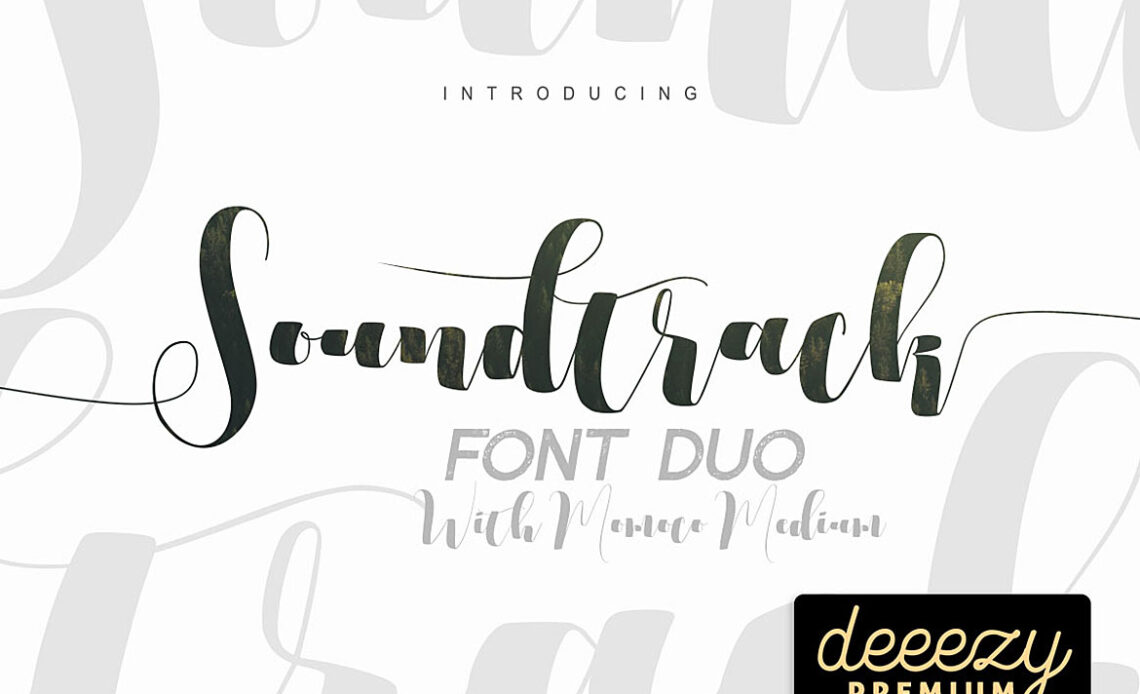
Unleash Your Creativity with Soundtrack Font Duo: The Perfect Symphony for Your Design Journey
Step into a world of captivating typography with Soundtrack Font Duo, an exquisite fusion of modern brush script and clean display fonts. This dynamic duo is a masterpiece crafted by JumboDesign, renowned for their innovative and stylish font creations.
Experience the Elegance of Handwritten Charm:
With its sweeping strokes and graceful curves, the Soundtrack Font Duo's brush script font exudes a touch of elegance and personality. Each letter dances across the page like a melody, adding a touch of sophistication to your designs.
Showcase Your Designs with a Clean and Modern Aesthetic:
The display font included in the Soundtrack Font Duo offers a striking contrast to the brush script, with its crisp lines and minimalist design. Whether you're creating logos, posters, or website headers, this font provides a clean and contemporary canvas for your creative expression.
Grunge Version for an Edgy Touch:
Embrace the raw and edgy appeal of the grunge version of the display font. This unique variation adds a touch of texture and grit, perfect for designs that demand attention. Whether you're creating urban-inspired graphics or vintage-style posters, the grunge version will add a distinctive charm to your projects.
Multilingual Support for Global Appeal:
With its extensive multilingual support, the Soundtrack Font Duo caters to a global audience. Create designs that resonate with people from different linguistic backgrounds, expanding your reach and connecting with a diverse customer base.
Dive into a Sea of Stylistic Alternates:
Unlock a treasure trove of creative possibilities with the Soundtrack Font Duo's array of stylistic alternates. Experiment with different letterforms, swashes, and ligatures to add depth and character to your designs. Discover new ways to express your unique style and make your projects truly stand out.